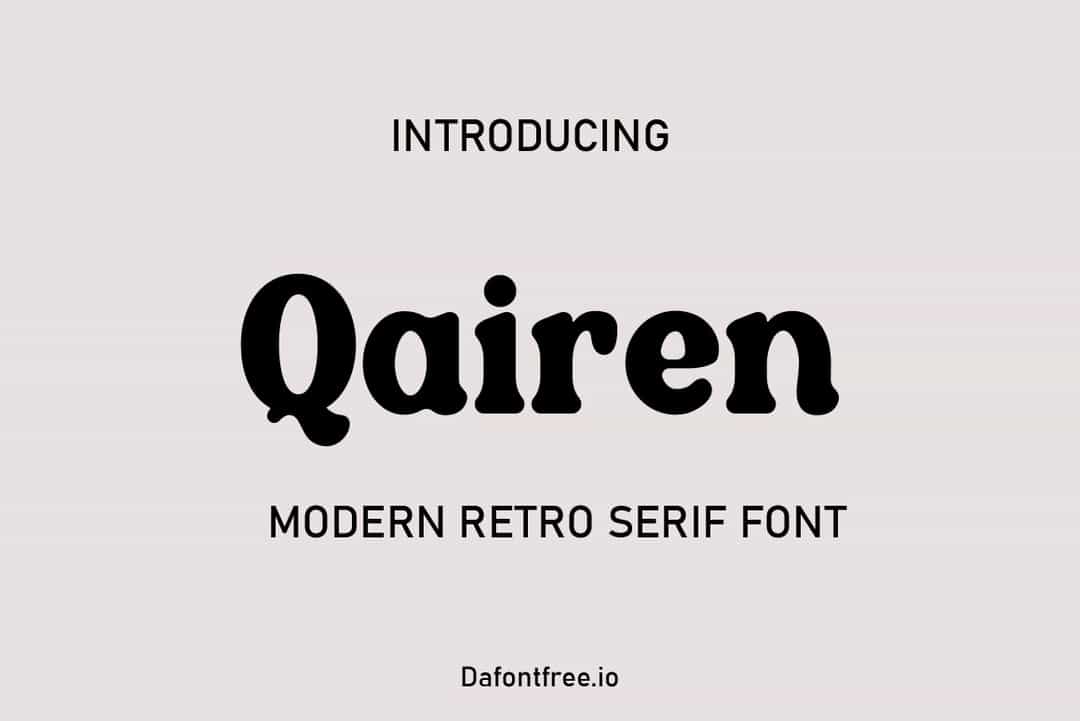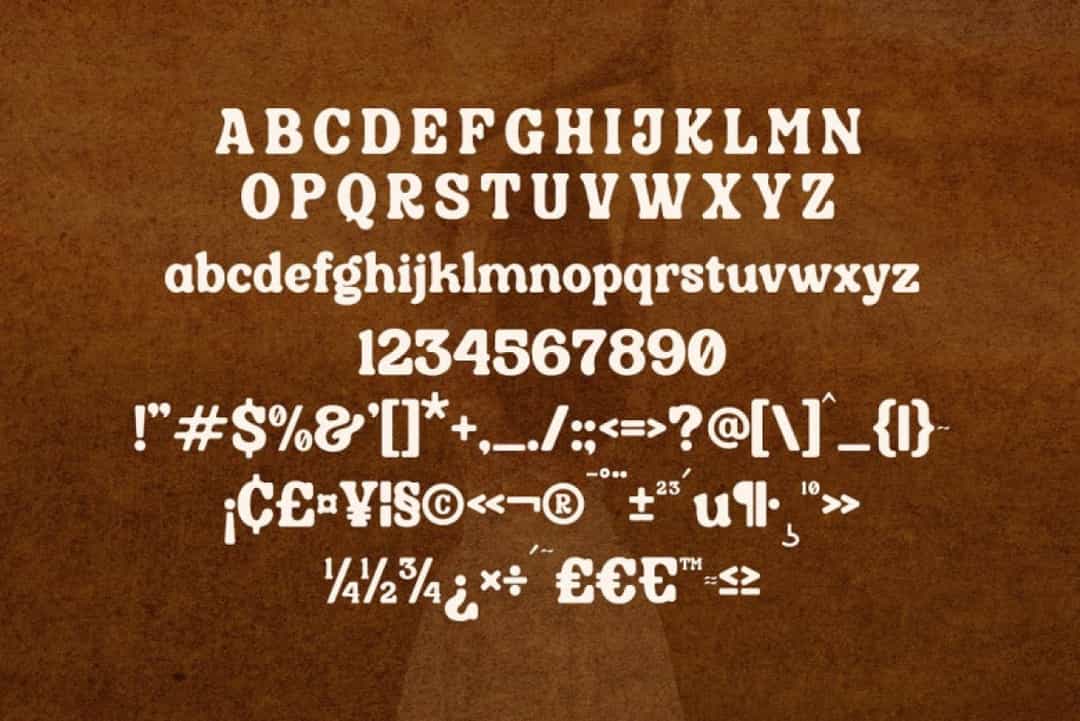
Qairen is an iconic Retro serif typeface with an elegant and luxurious aesthetic, perfect for elegant logos, book or film titles, fashion magazines, clothing brands clothing lines, letters quotes and many other projects.